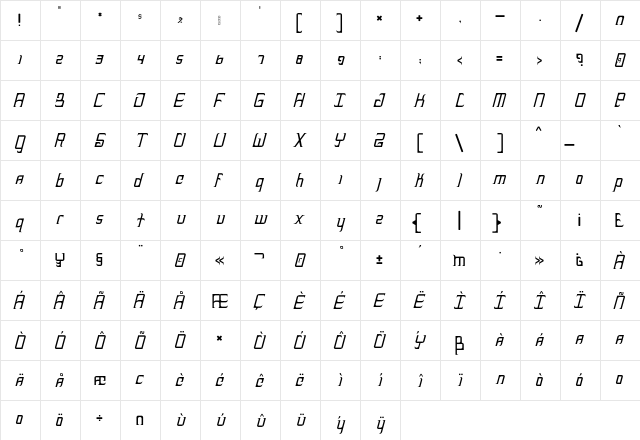
Heckler RegularItalic
Design Context for Heckler Typeface
Heckler is a composed and adaptable typeface that performs quietly and consistently across a wide range of design contexts. Its italic angle brings a sense of urgency and motion to the letterforms.
Pro Tip: Use Heckler for emphasis, pull quotes, and subheadings where its slanted energy can add rhythm to the layout.